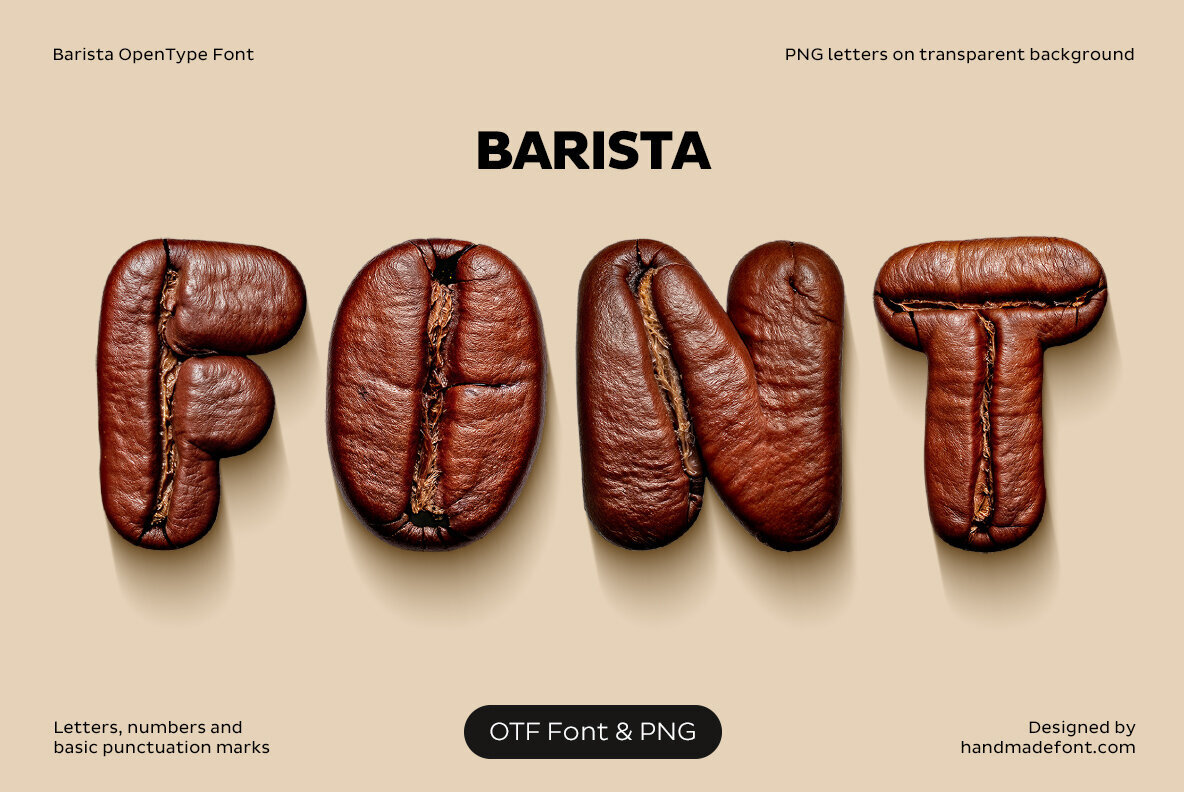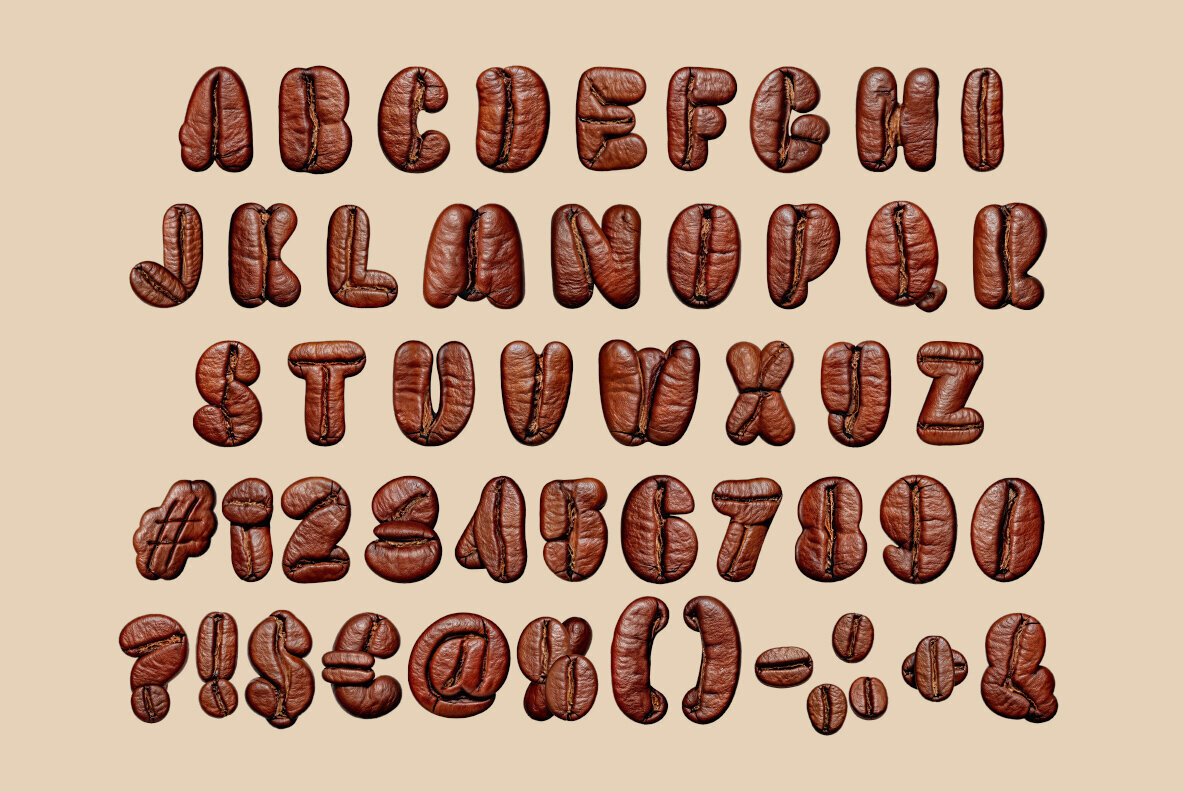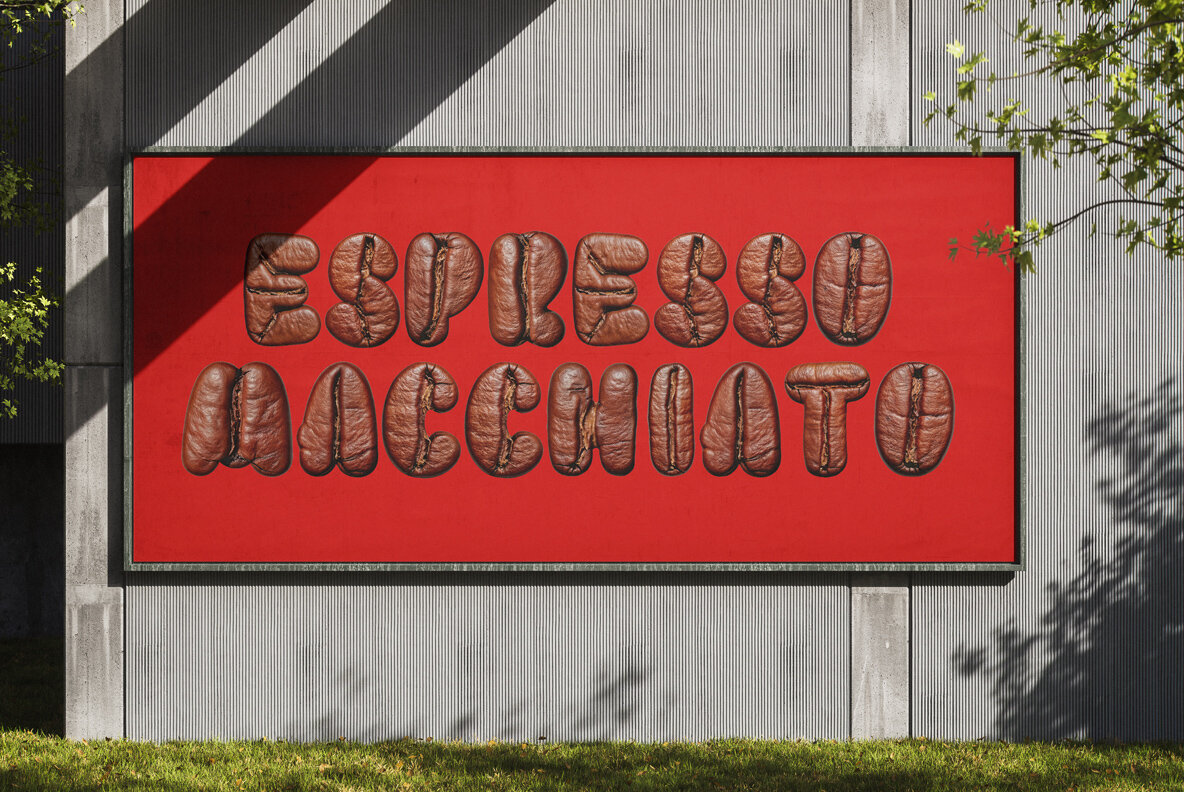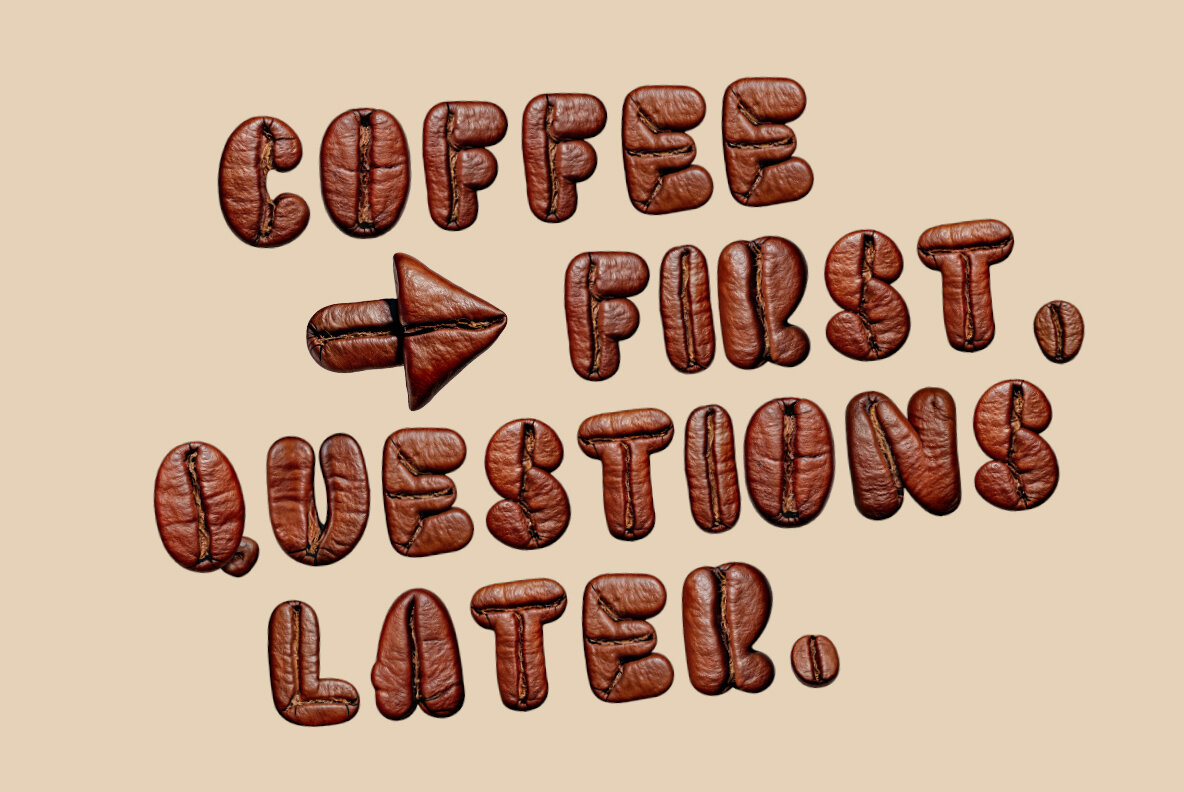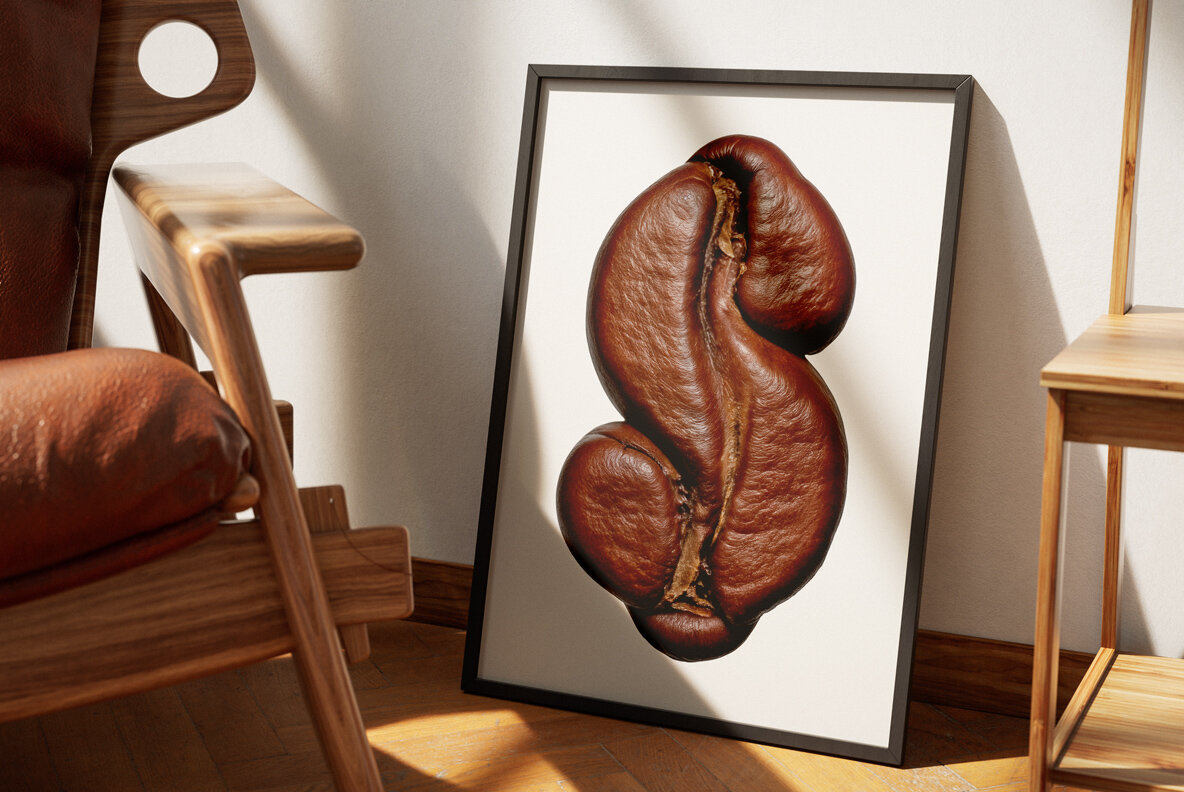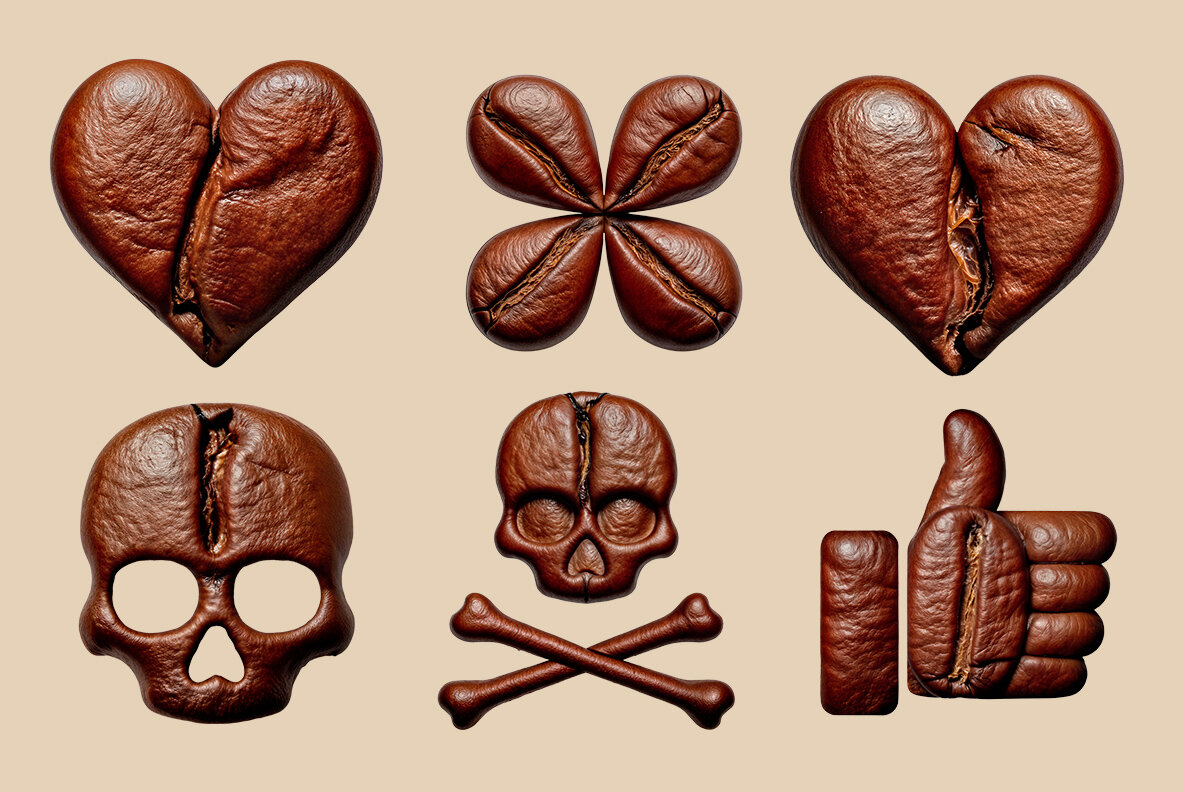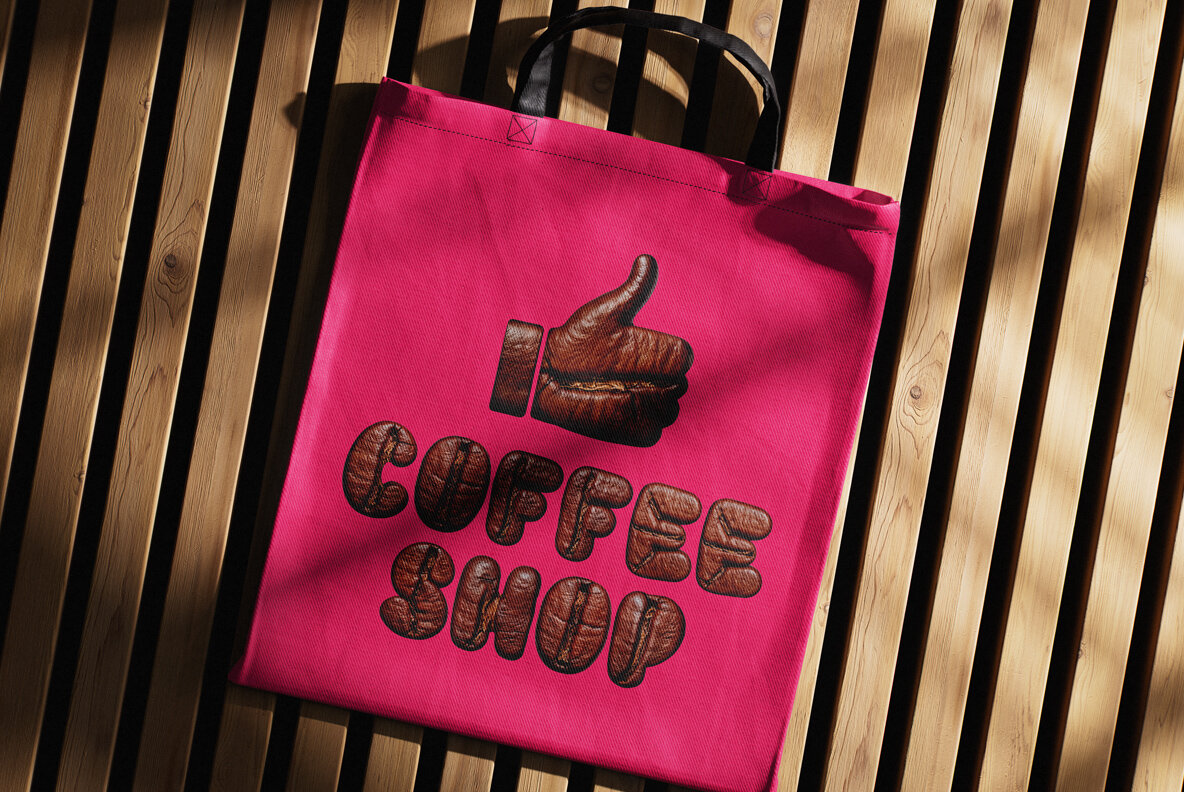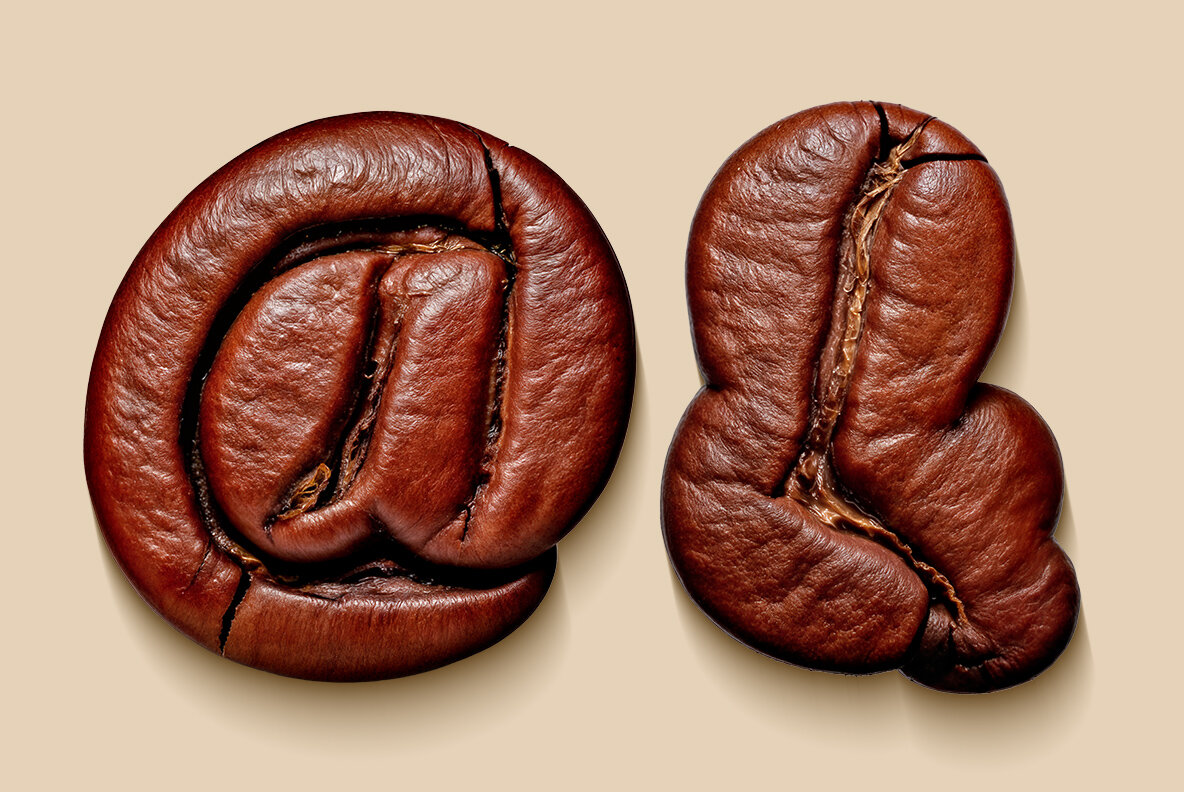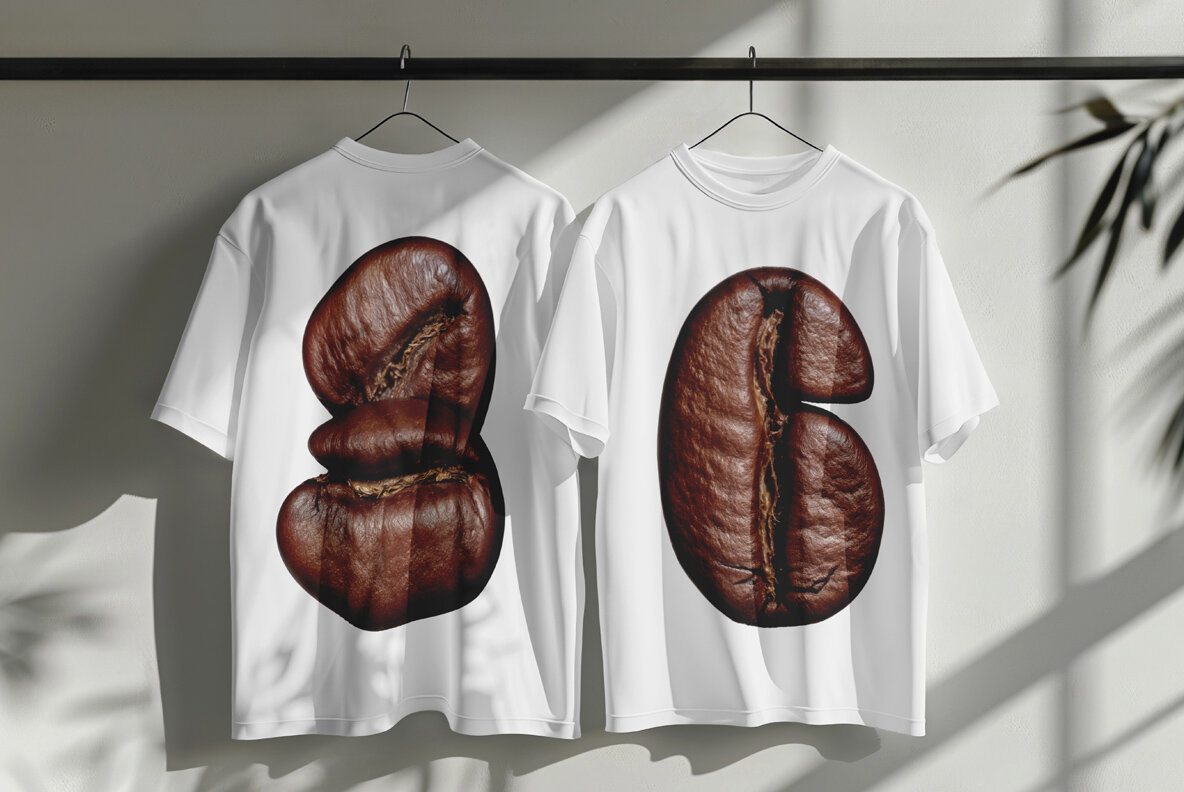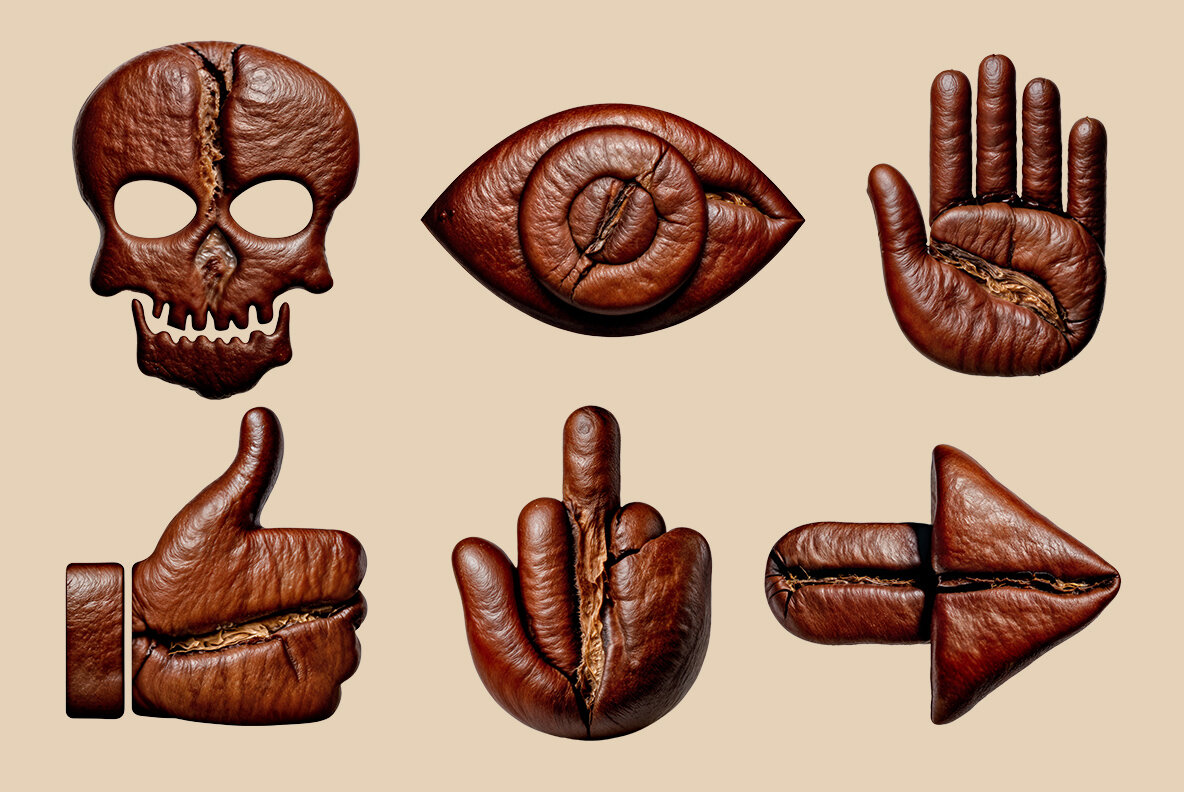
Dive into the rich and warm world of the Barista Font, where typography meets the art of coffee brewing. Each letter of this typeface embodies the essence of a perfectly roasted coffee bean, adorned with intricate textures and deep espresso shades. Ideal for cafe logos, enticing menu designs, and packaging that whispers warmth and authenticity, this font brings a bold, aromatic flair to any project. Whether you're branding a cozy coffee shop or infusing your artwork with a caffeine-inspired edge, Barista Font promises a brew that is visually delightful. Just like your favorite cup of coffee, this typeface focuses on the details that matter. The high-definition OpenType Font includes uppercase characters, numerals, and basic punctuation, ensuring a seamless integration into your creative endeavors.Barista Font: A Coffee Lover's Dream